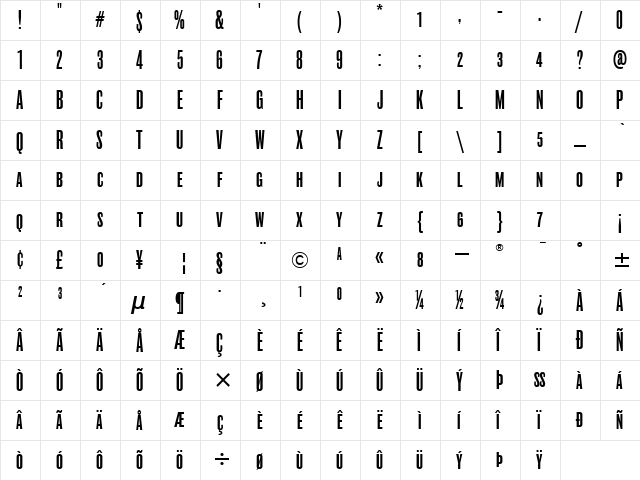
RoswellSCFourITC TT Regular Font Preview
RoswellSCFourITC TT Regular
RoswellSCFourITC TT Regular Font Details
Design Context for RoswellSCFourITC TT Typeface
RoswellSCFourITC TT is a composed and adaptable typeface that performs quietly and consistently across a wide range of design contexts.